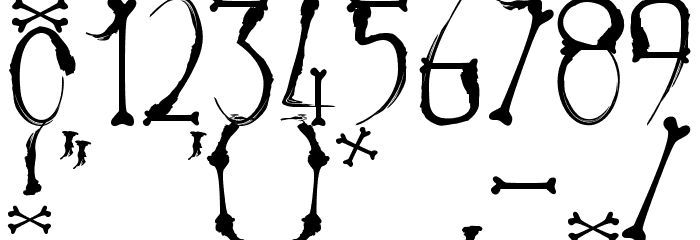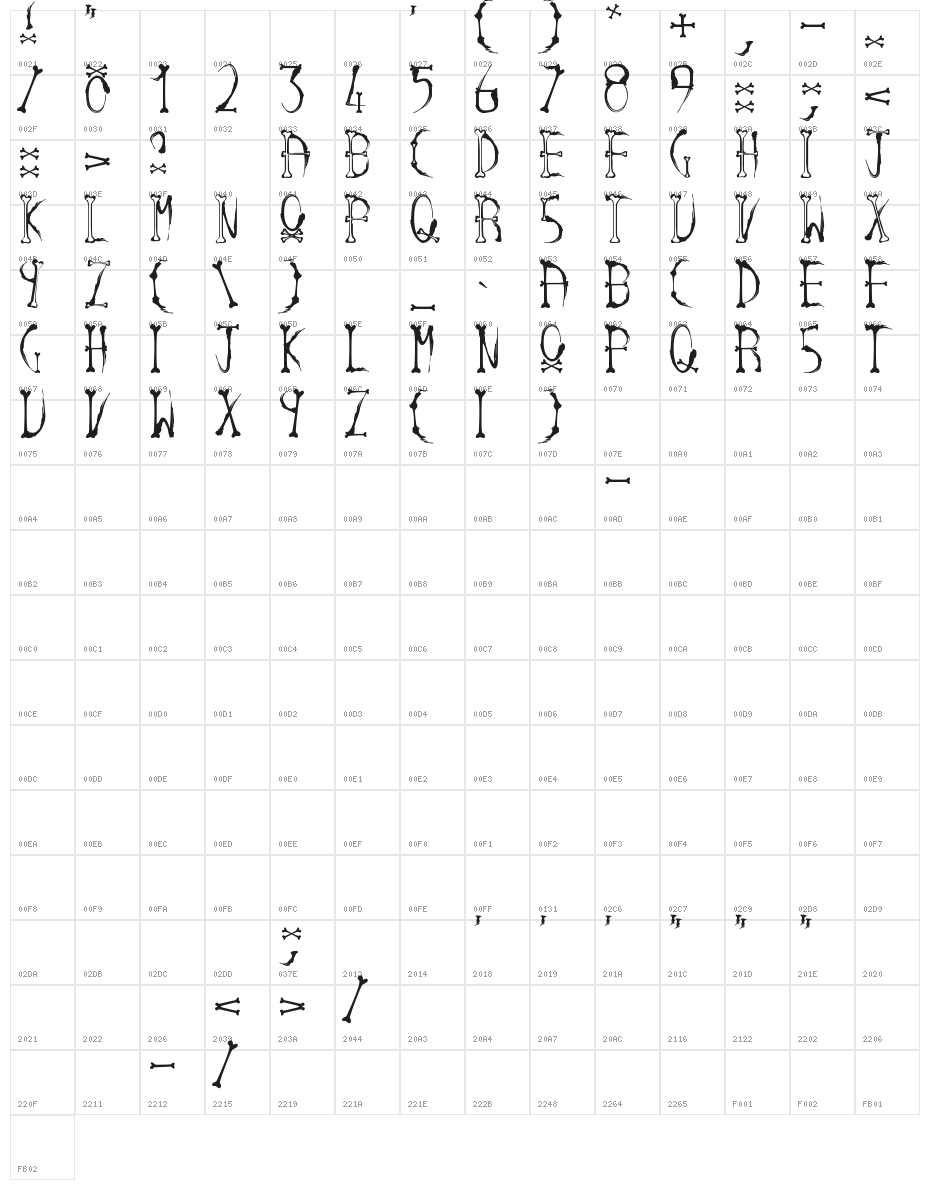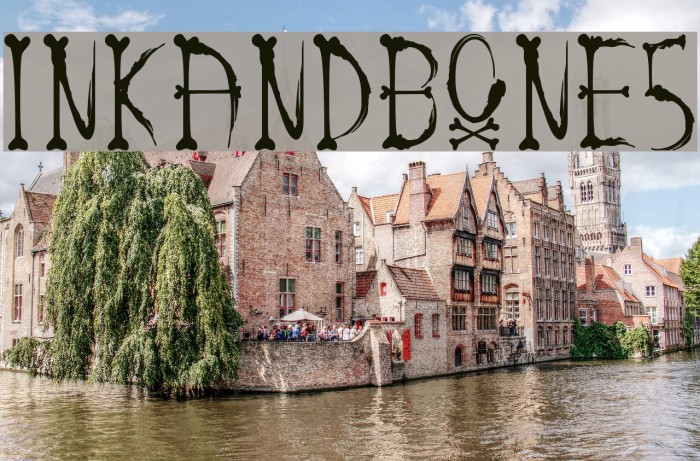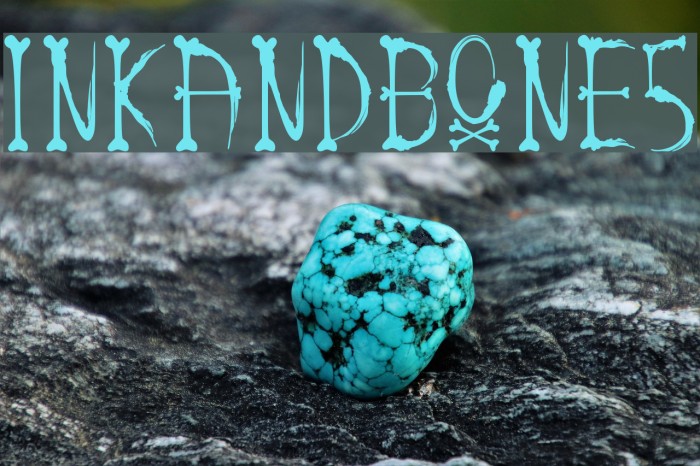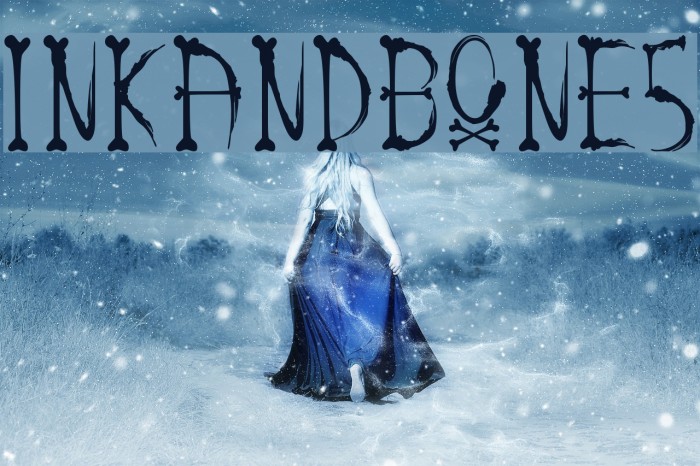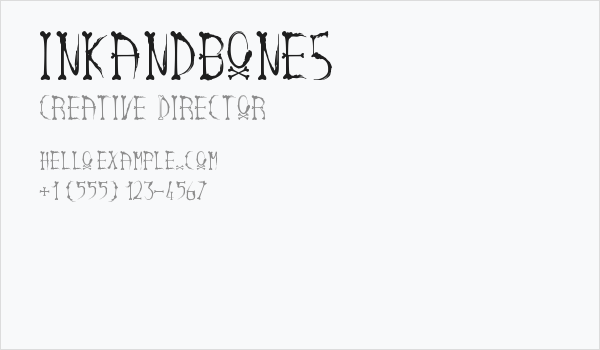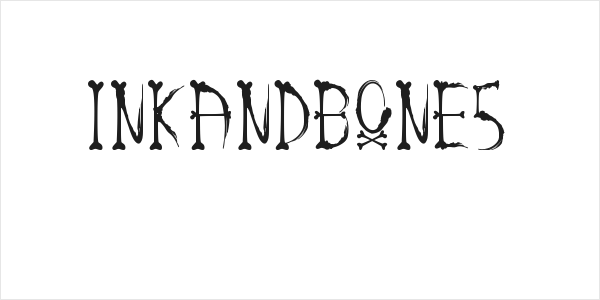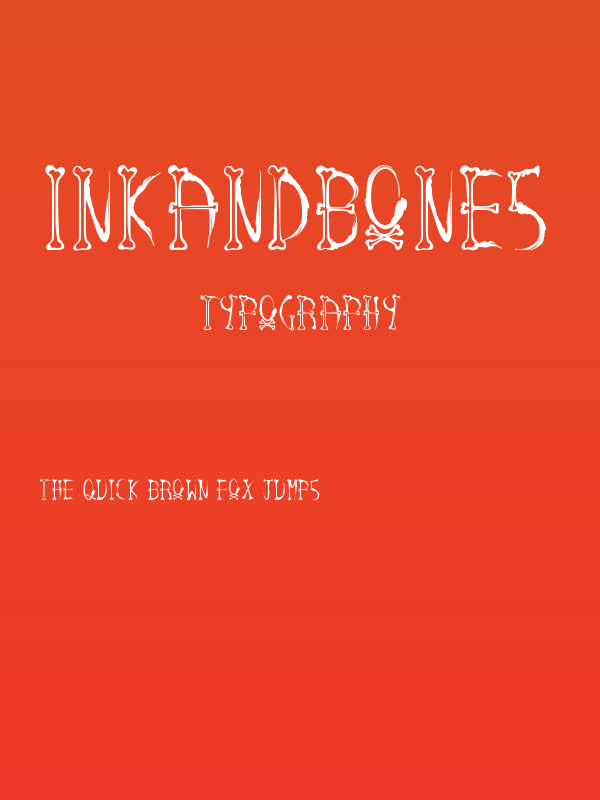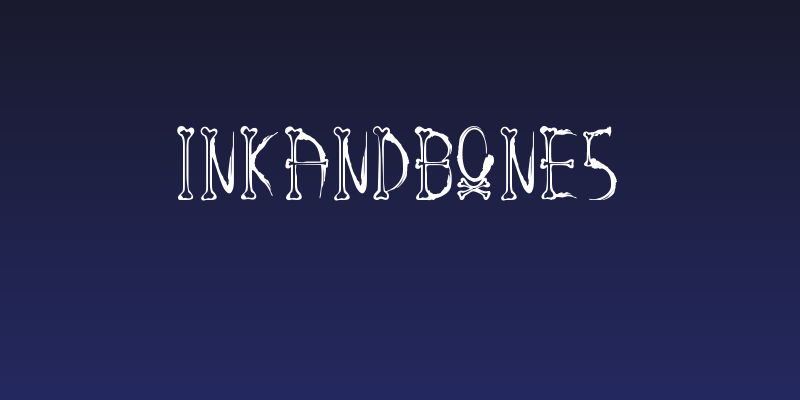
inkandbones Font
inkandbones Description
This font features a unique and eerie design, reminiscent of bones and ink splatters. Each character is crafted with a skeletal structure, giving it a distinct, haunting appearance. The uppercase and lowercase letters maintain a consistent theme, with elongated strokes and sharp edges that mimic the look of bones. Numbers and special characters follow the same design principles, ensuring a cohesive look across all glyphs. The font's intricate details and dark aesthetic make it ideal for projects that require a spooky or gothic touch.
| Overall Style | Gothic, Spooky |
| Use Case | Headlines, Logos, Decorative Text |
| Proposed Projects | Ideal for Halloween-themed designs, horror movie posters, gothic event invitations, and spooky merchandise branding. |